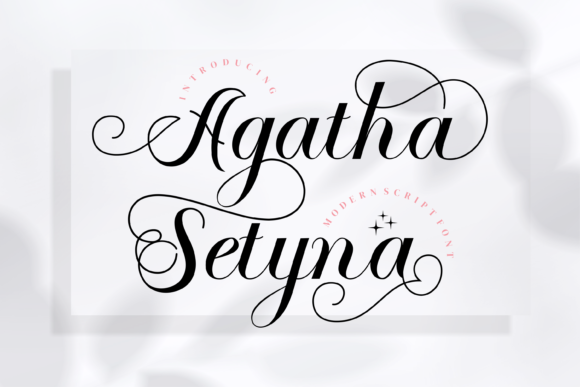
The Agatha Setyna Font: A Delicate, Elegant Companion for Your Creative Projects
I’ll never forget the moment I stumbled upon the Agatha Setyna font. I was working on a branding project for a luxury wedding planner, and I was struggling to find the perfect font to capture the essence of her high-end services. The client wanted something elegant, sophisticated, and romantic, but not too over-the-top. As I scrolled through my font library, Agatha Setyna caught my eye, and I knew I had found “the one.”
A Personal Review: What I Love About Agatha Setyna
So, what makes Agatha Setyna so special? Here are a few things that I absolutely love about this beautiful font:
- ✨ Delicate and elegant: Agatha Setyna has a way of adding a touch of sophistication to any design. Its flowing lines and beautiful character balance make it perfect for projects that require a bit of luxury and refinement.
- ✅ Versatile: This font is incredibly versatile and can be used for a wide range of projects, from wedding invitations and branding materials to packaging and digital content.
- 💫 Unique character: Agatha Setyna has a distinct personality that sets it apart from other fonts. Its subtle quirks and charm make it perfect for designers who want to add a bit of personality to their work.
While Agatha Setyna is an amazing font, it’s not perfect. Here are a few things to keep in mind:
- 🤔 Limited use in body text: While Agatha Setyna is stunning as a display font or for short paragraphs, it may not be the best choice for longer blocks of body text. Its delicate nature can make it difficult to read in smaller sizes.
- ⚠️ Kerning issues: As with any font, kerning can be a bit tricky with Agatha Setyna. Make sure to adjust the kerning and tracking to ensure that your text looks its best.
A Practical Guide to Using Agatha Setyna
The Story Behind Agatha Setyna
Agatha Setyna was designed by a talented type designer who wanted to create a font that captured the essence of elegance and sophistication. Inspired by classic calligraphy and handwriting, Agatha Setyna is a beautiful and refined font that is perfect for creative projects.
| Author | mahstudios |
| What is Agatha Setyna best used for? | Agatha Setyna is best used for creative projects that require a touch of elegance and sophistication, such as wedding invitations, branding materials, and packaging. |
| Is Agatha Setyna suitable for body text? | While Agatha Setyna can be used for short paragraphs, it may not be the best choice for longer blocks of body text due to its delicate nature. |